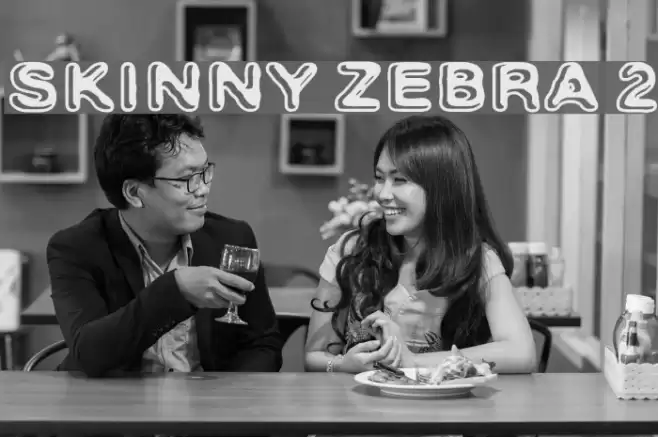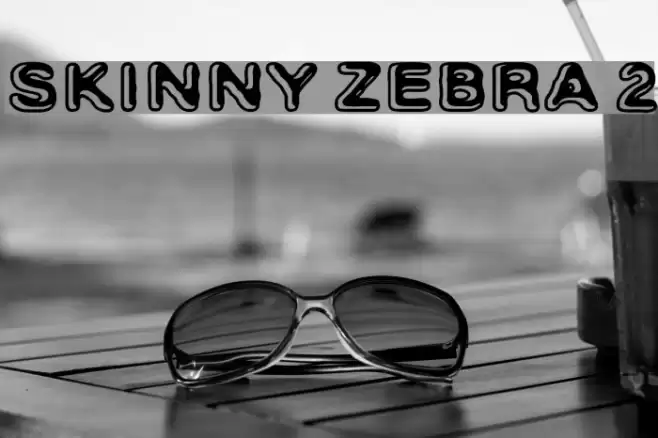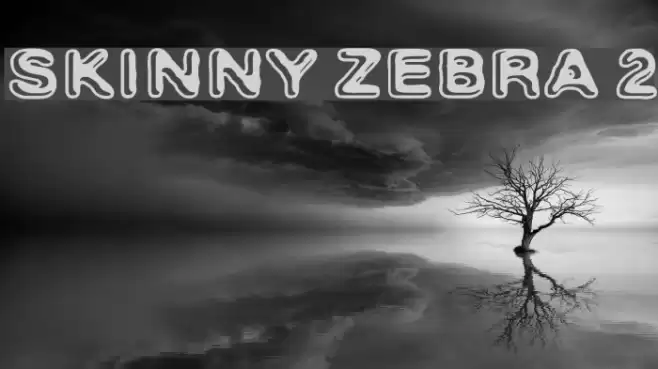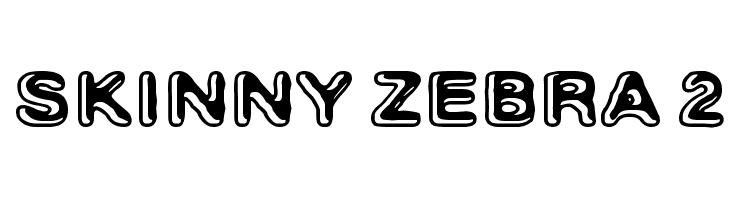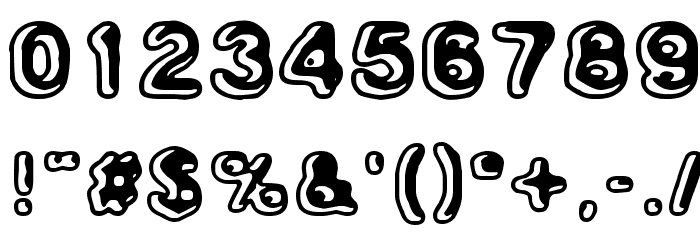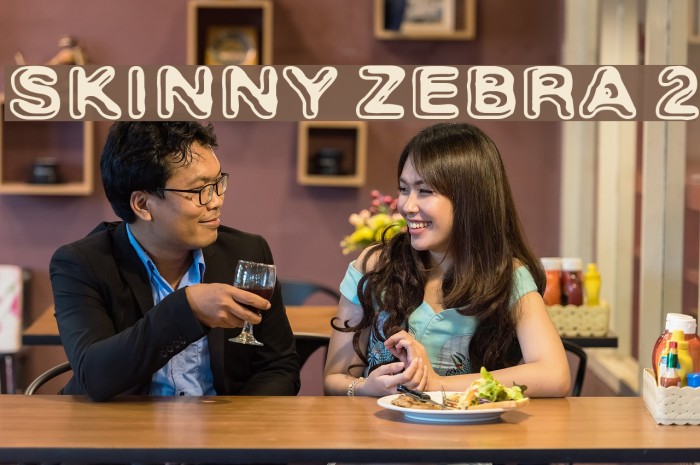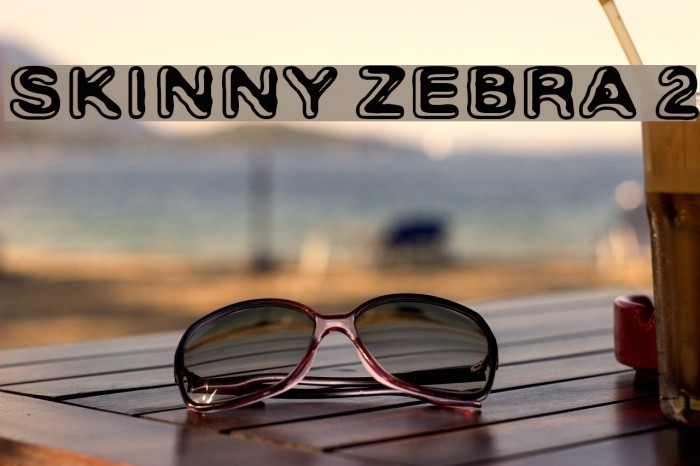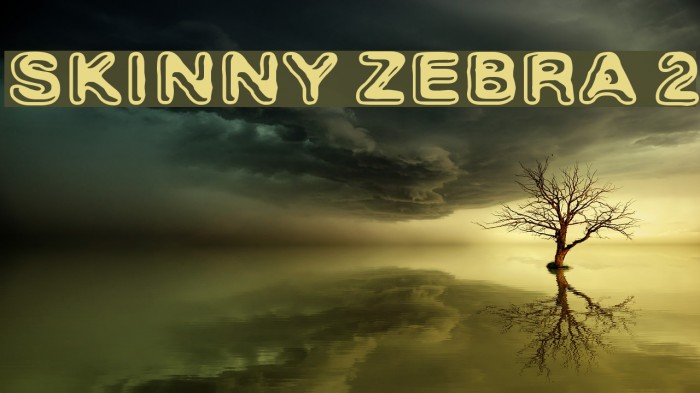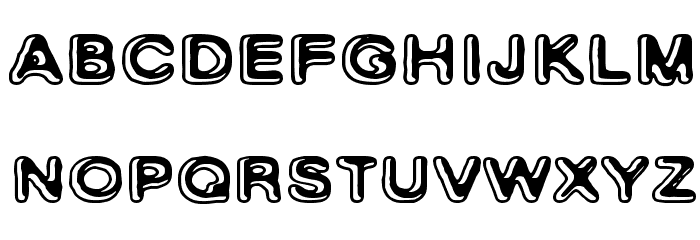
Skinny Zebra 2 Font
Skinny Zebra 2 Description
This font features a bold, playful design with a zebra-like pattern that gives it a unique and eye-catching appearance. The letters are outlined with a thick, black border, creating a strong contrast against the white interior. This decorative style is consistent across uppercase and lowercase letters, as well as numbers and special characters. The font's whimsical nature makes it ideal for projects that require a fun and engaging aesthetic. Its boldness ensures readability while maintaining a distinct personality.
A bold, playful font with a zebra-like pattern and strong contrast from Uncategorized fonts.
- Proposed Projects: Ideal for children's books, playful branding, event posters, and creative packaging.